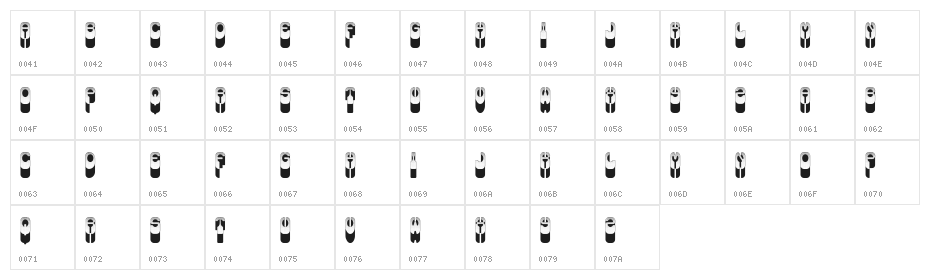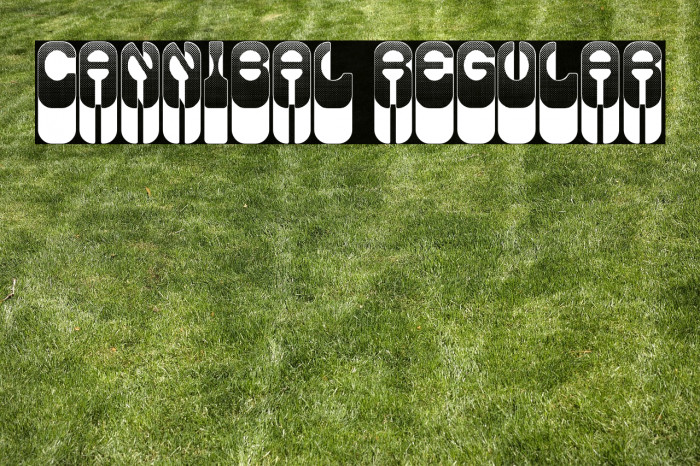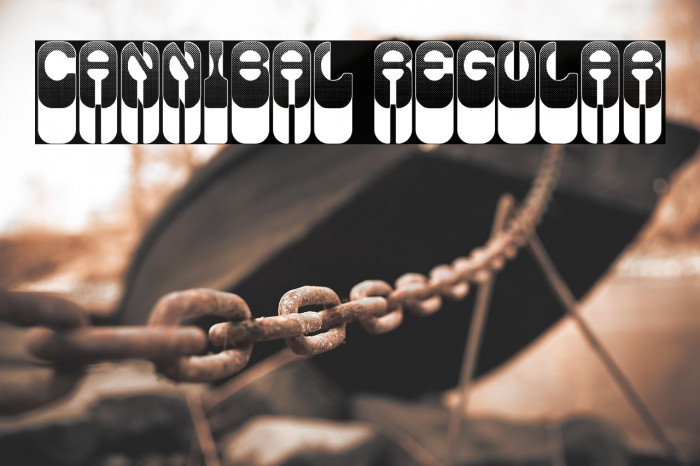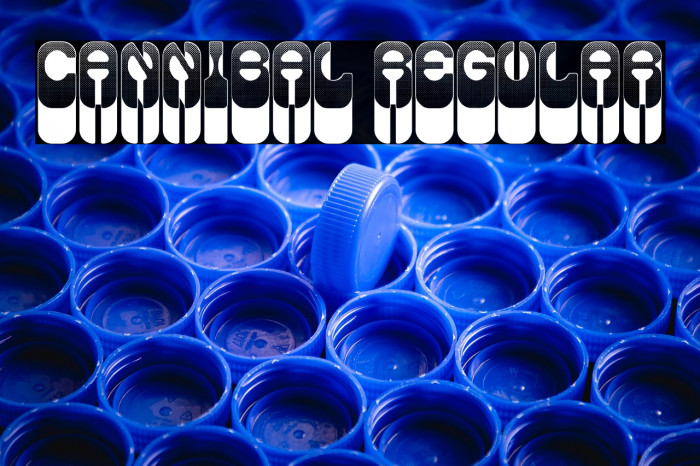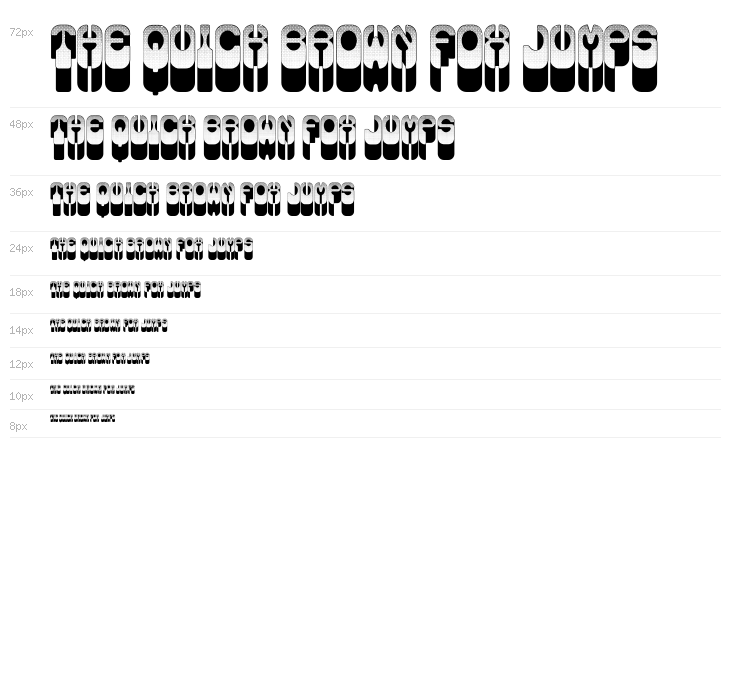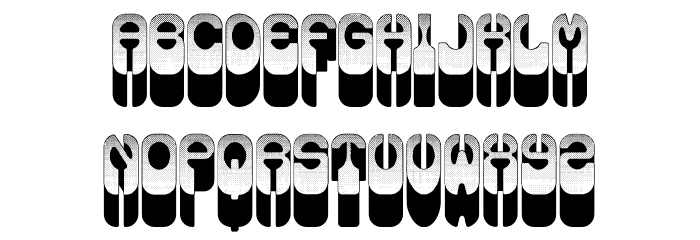
Cannibal Regular Font
Cannibal Regular Description
This font features a bold, three-dimensional design with a unique shadow effect that gives it a striking and modern appearance. The letters are rounded and thick, creating a sense of depth and volume. The shadow effect is consistent across all characters, adding a dramatic flair. The uppercase and lowercase letters maintain a uniform style, with the lowercase being slightly smaller but equally bold. Numbers and special characters are designed to match the overall aesthetic, ensuring a cohesive look. This font is ideal for projects that require a standout, eye-catching typeface.